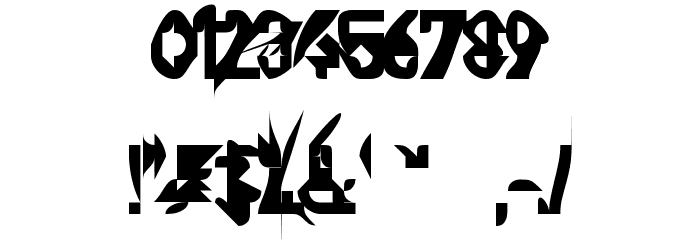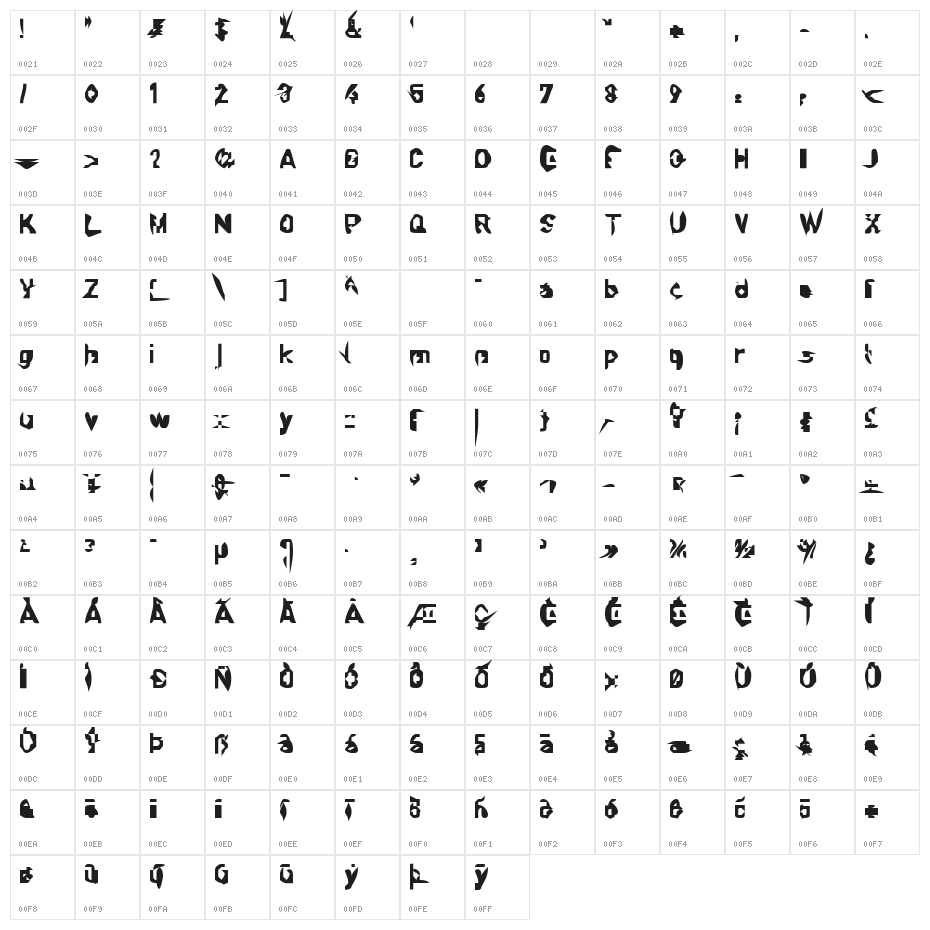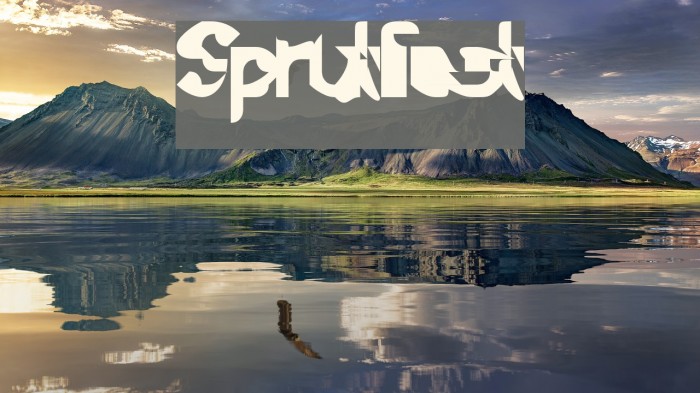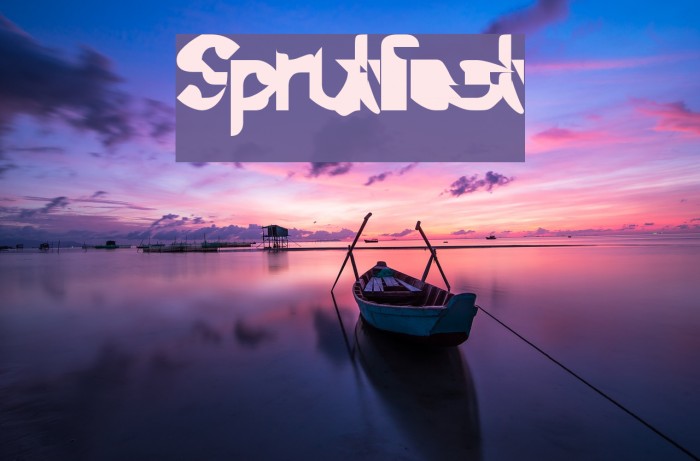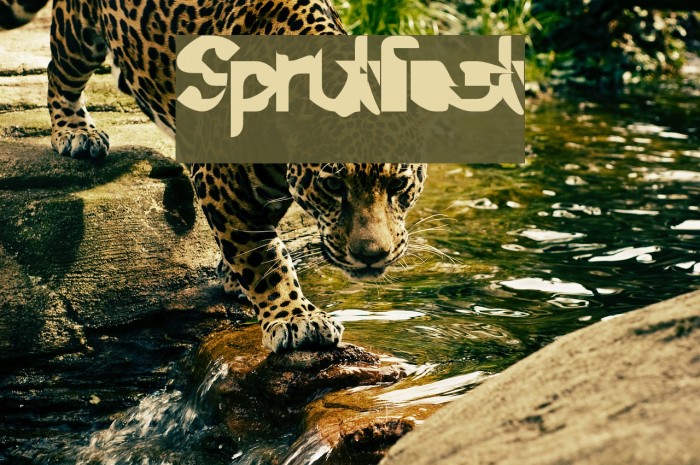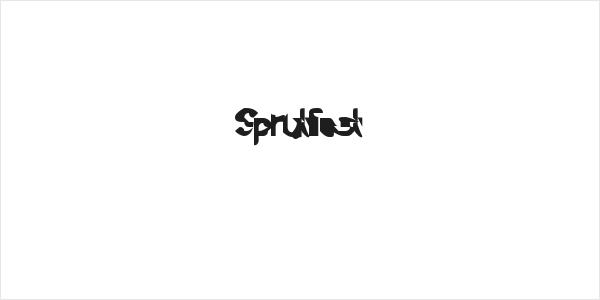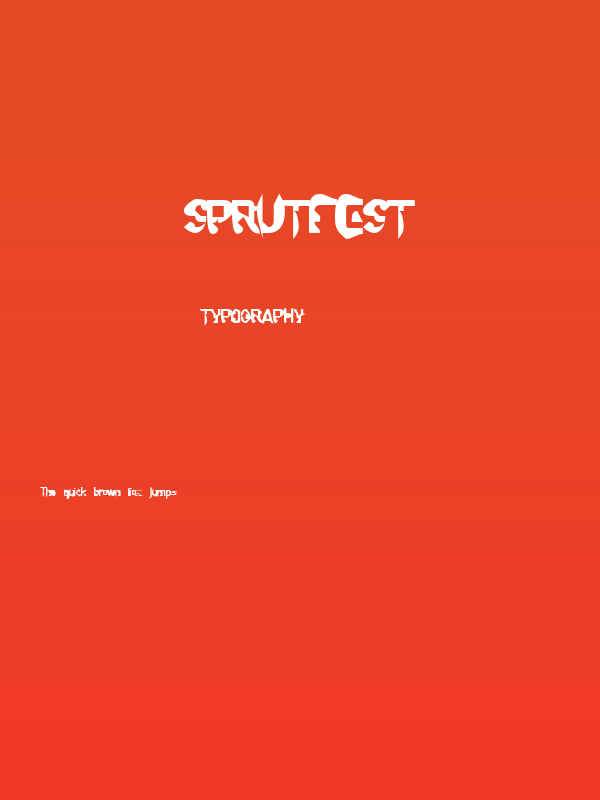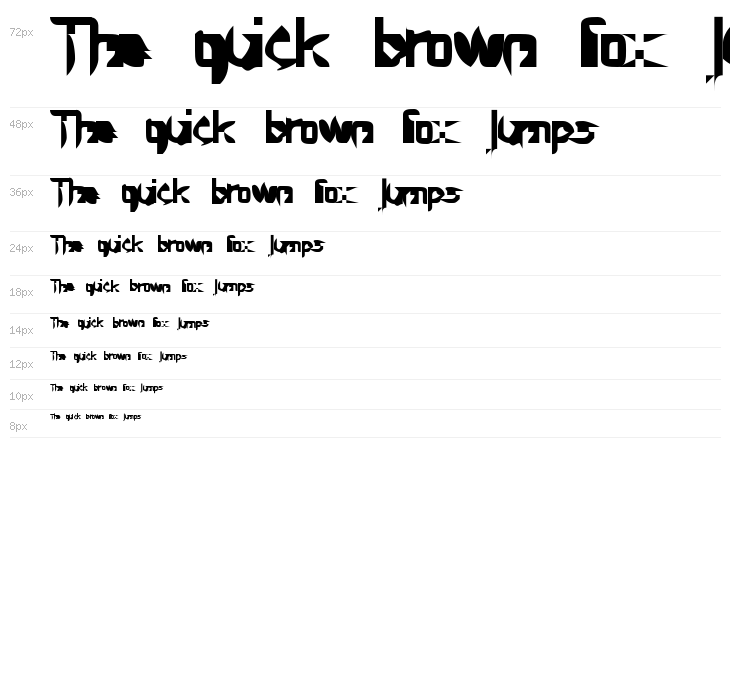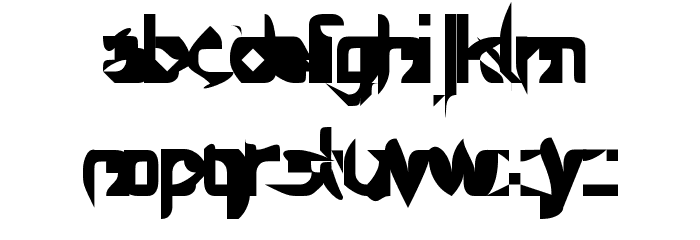
Sprutfest Font
Sprutfest Description
This font features a bold and dynamic design with sharp angles and geometric shapes. The characters are highly stylized, creating a sense of movement and energy. The uppercase and lowercase letters maintain a consistent style, with some characters having unique, abstract forms. The numbers and special characters follow the same aesthetic, making the font suitable for creative and artistic projects. Its distinct appearance makes it stand out, ideal for grabbing attention.
| Proposed Projects | Ideal for posters, album covers, branding for edgy or modern companies, and any project needing a standout, artistic typeface. |